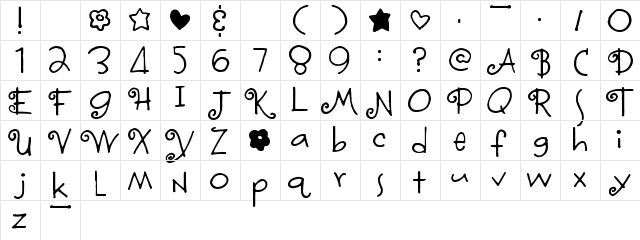
Fontmoochers Regular
Design Context for Fontmoochers Typeface
Fontmoochers is a composed and adaptable typeface that performs quietly and consistently across a wide range of design contexts.